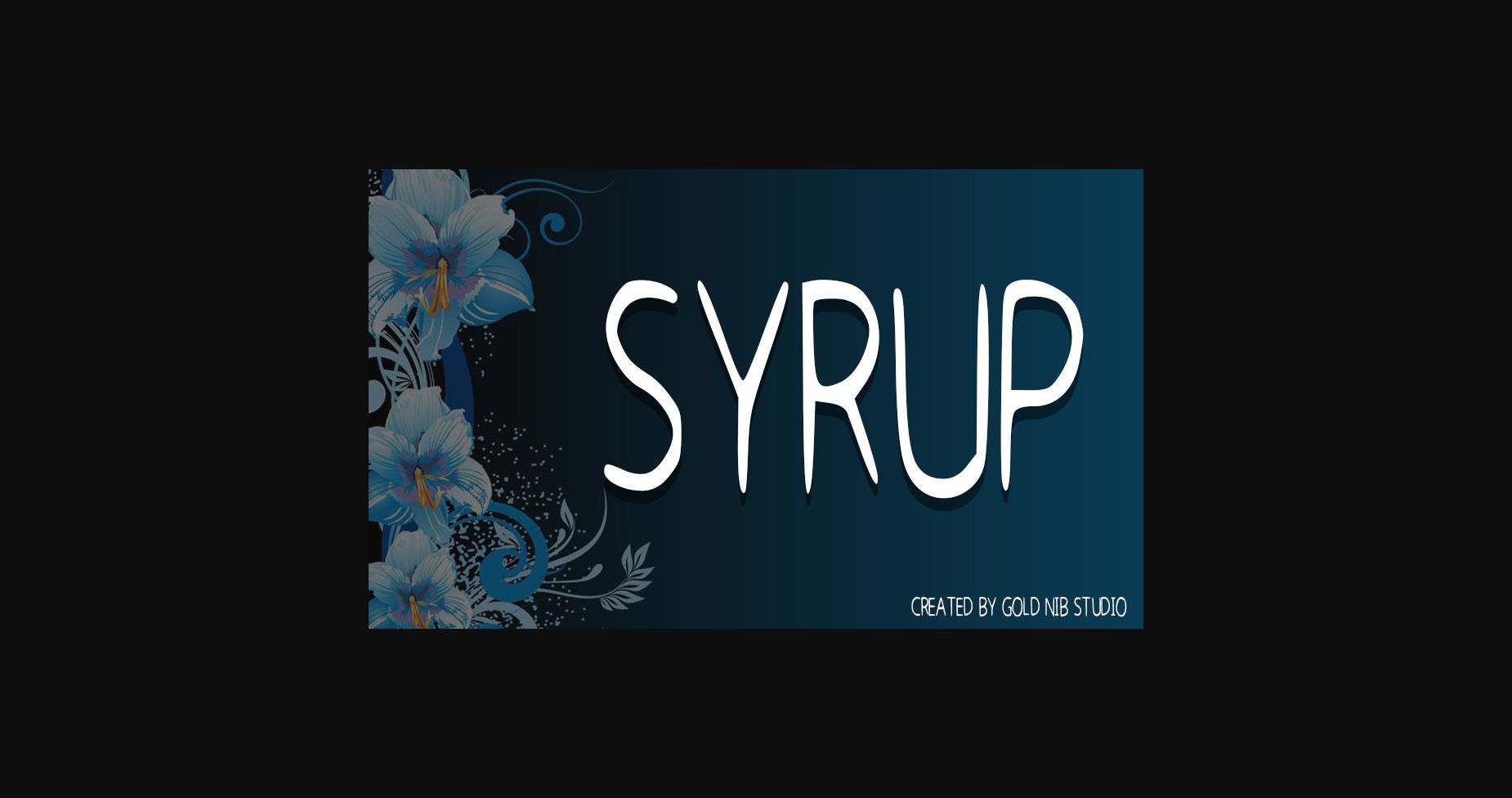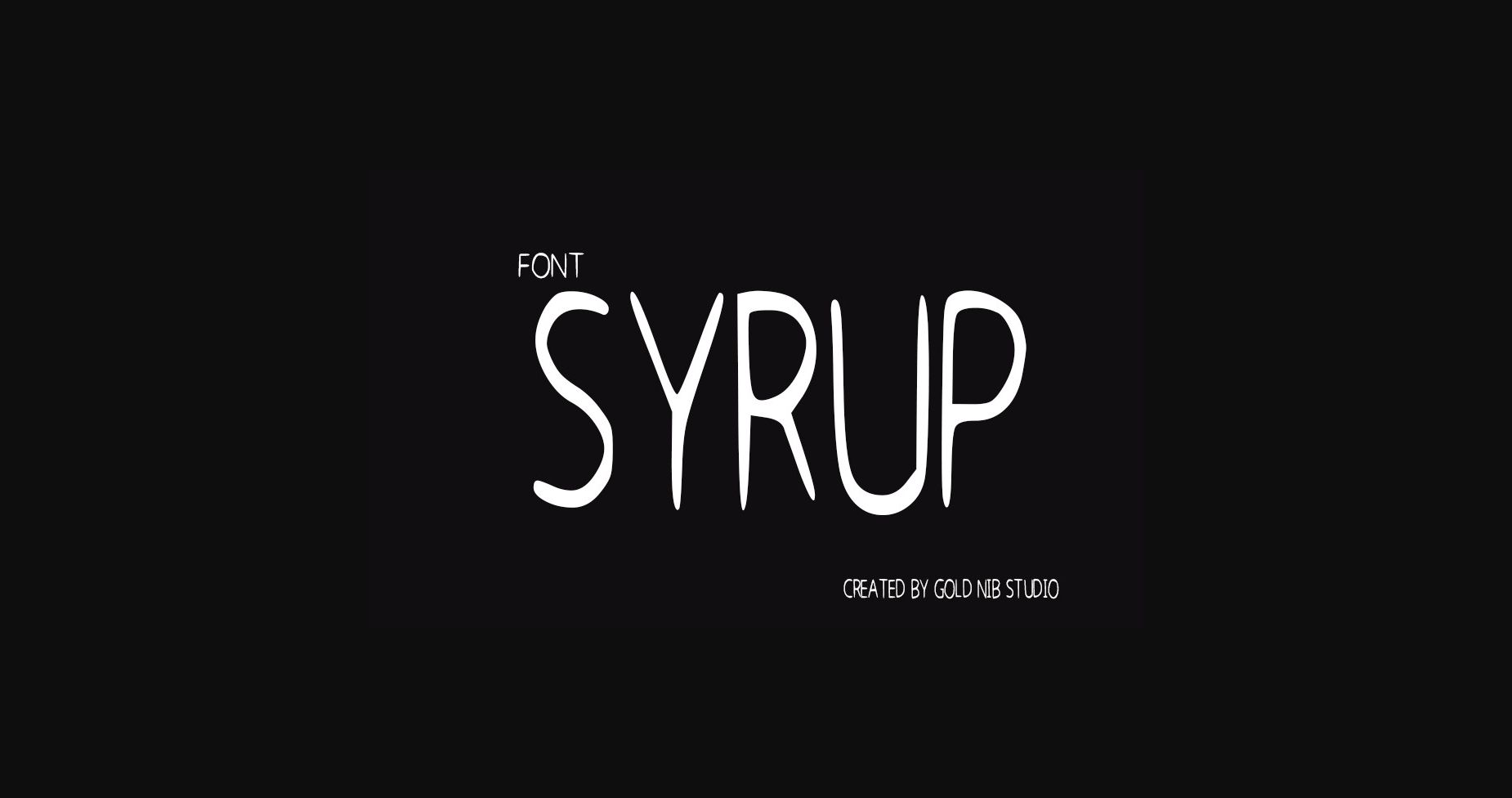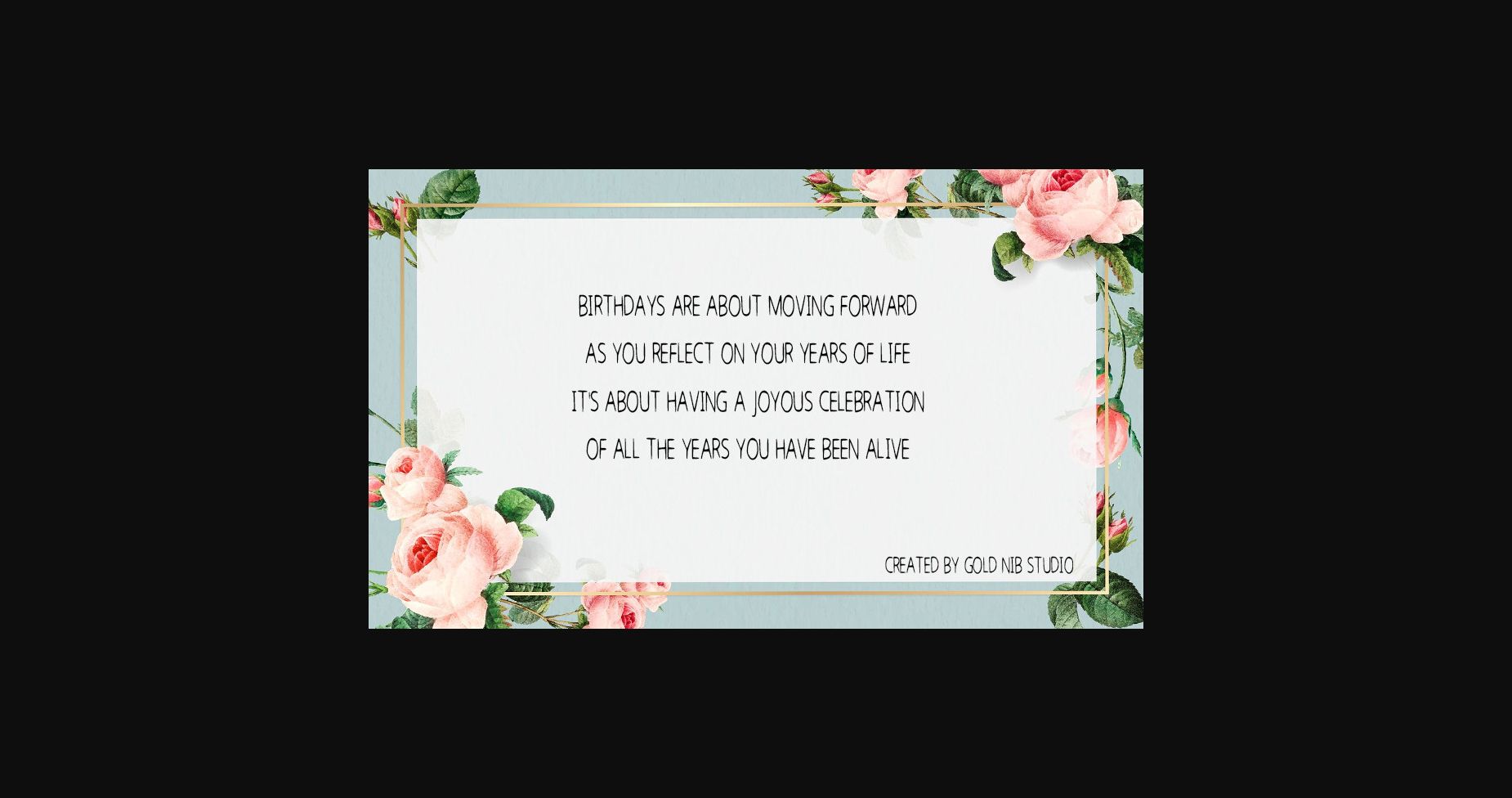
Syrup Font
About Syrup Font
Syrup is a casual sans serif font. This simple and professional typeface is suitable for film posters, headlines, block letters, subheadings, logo designs, and so much more.